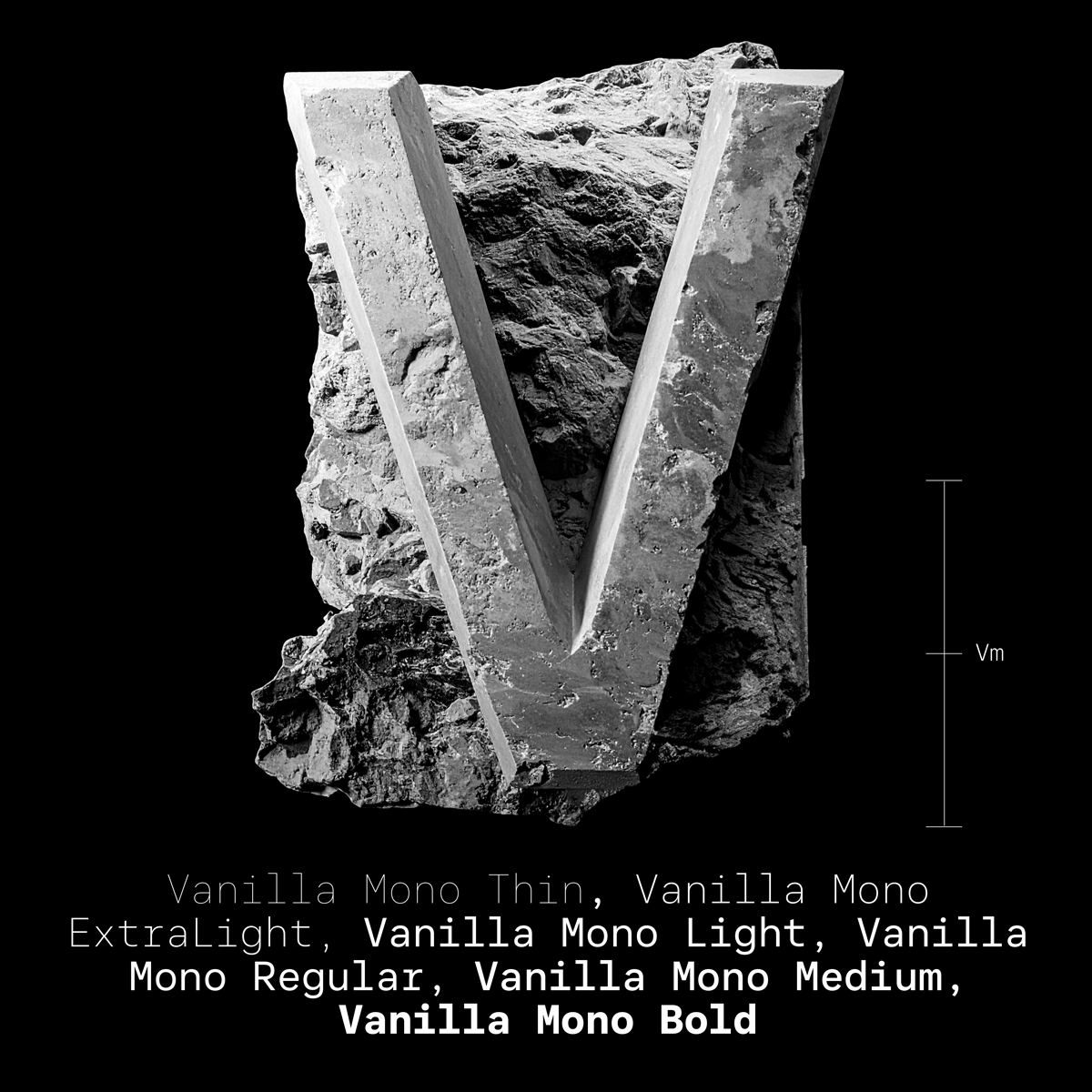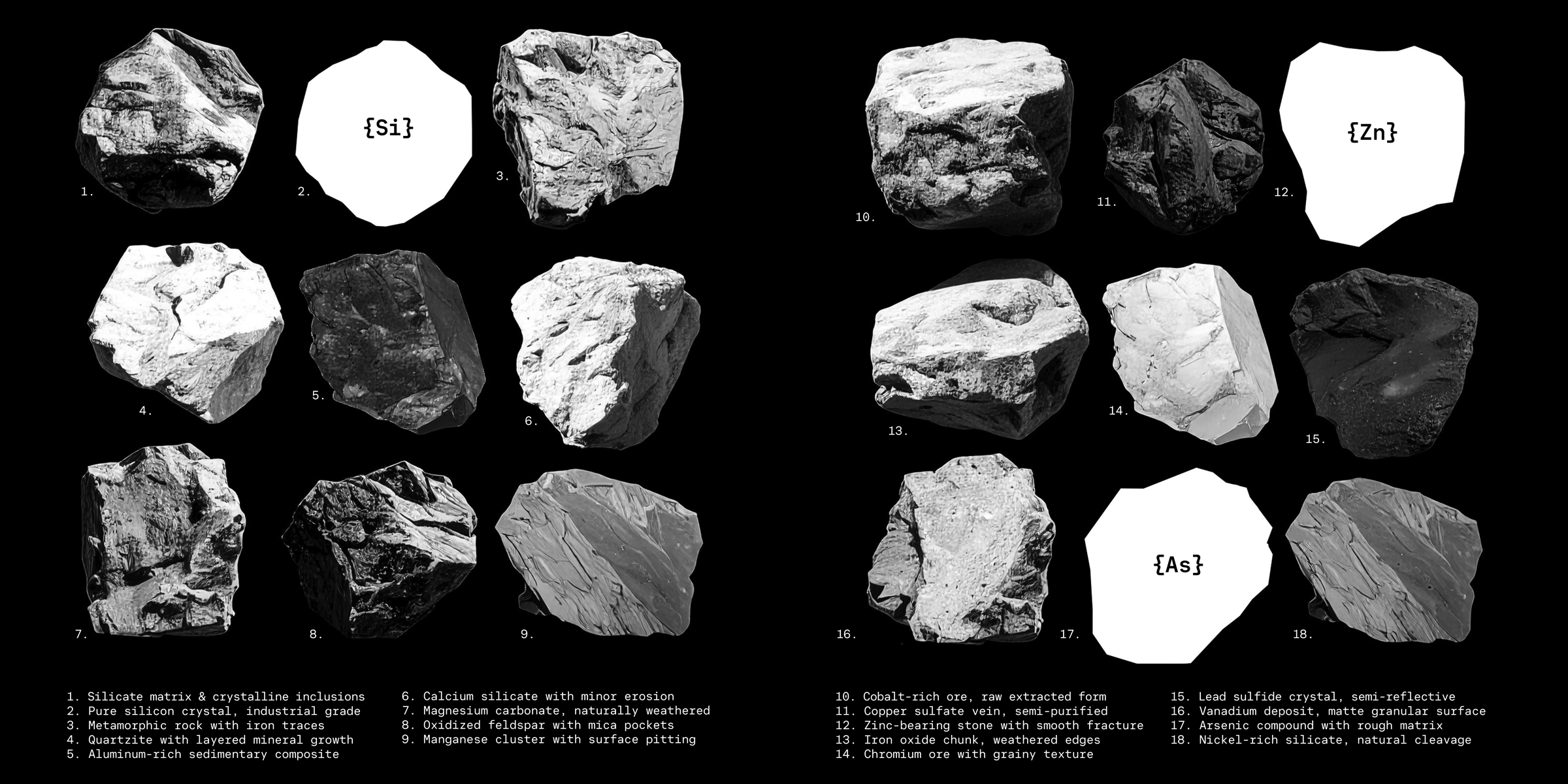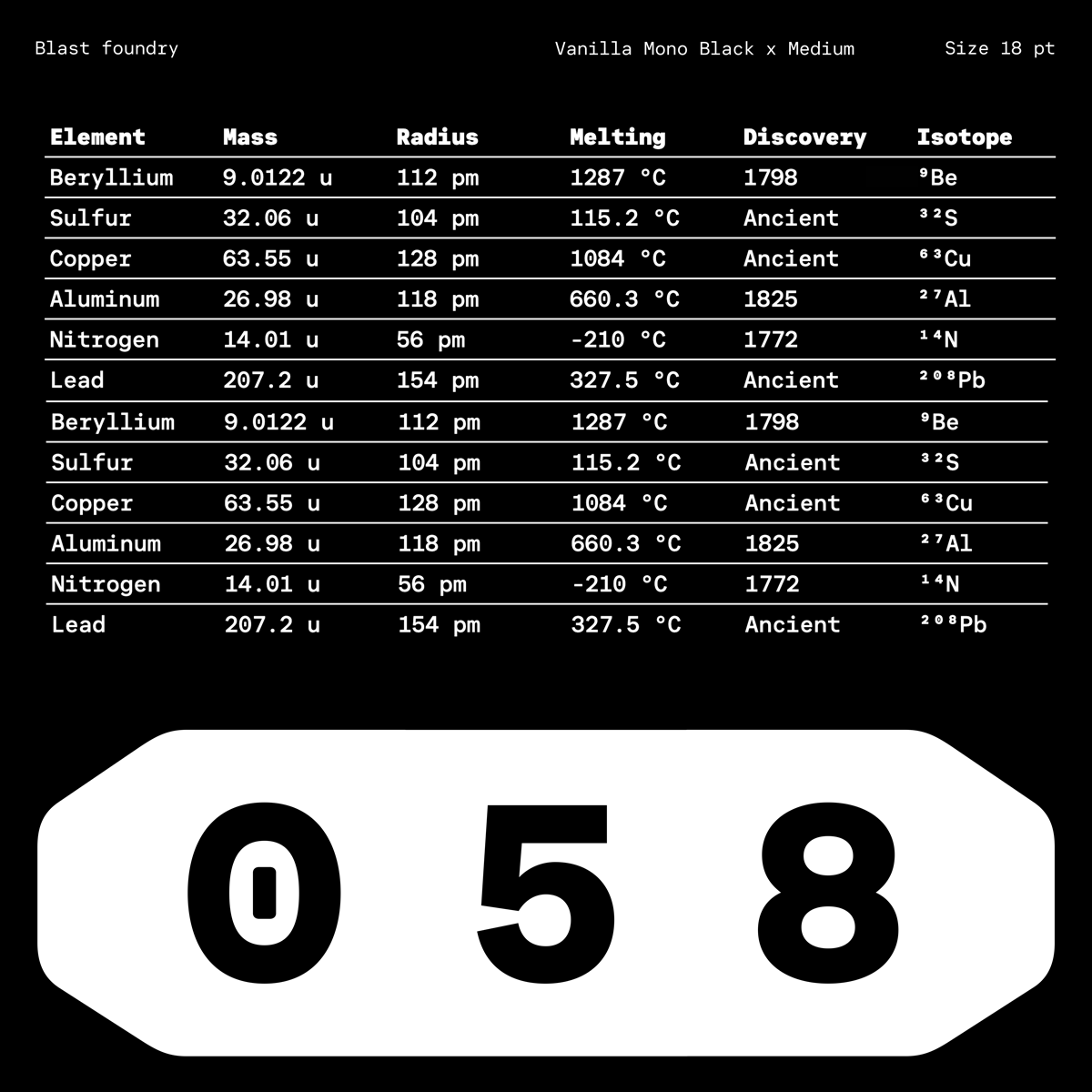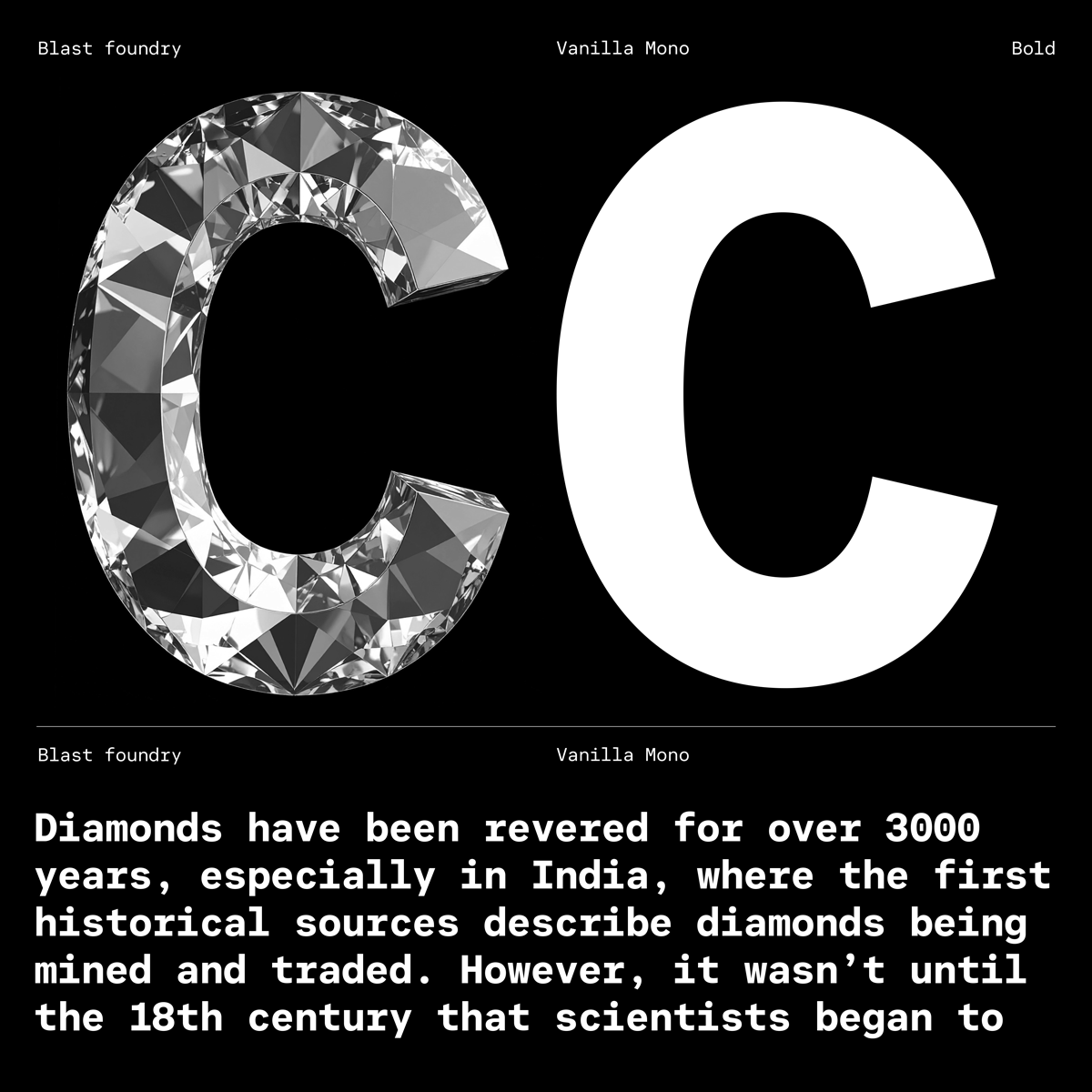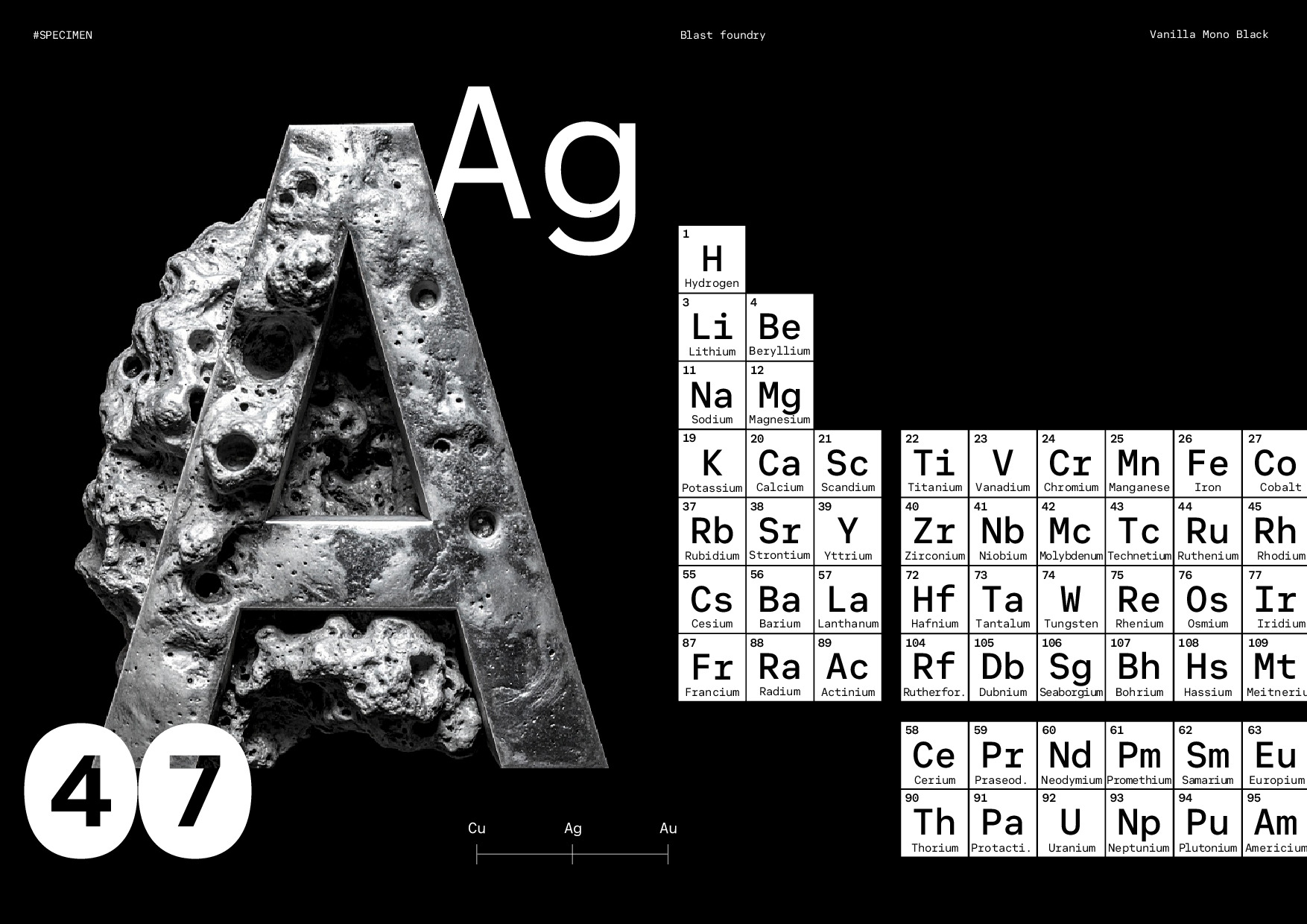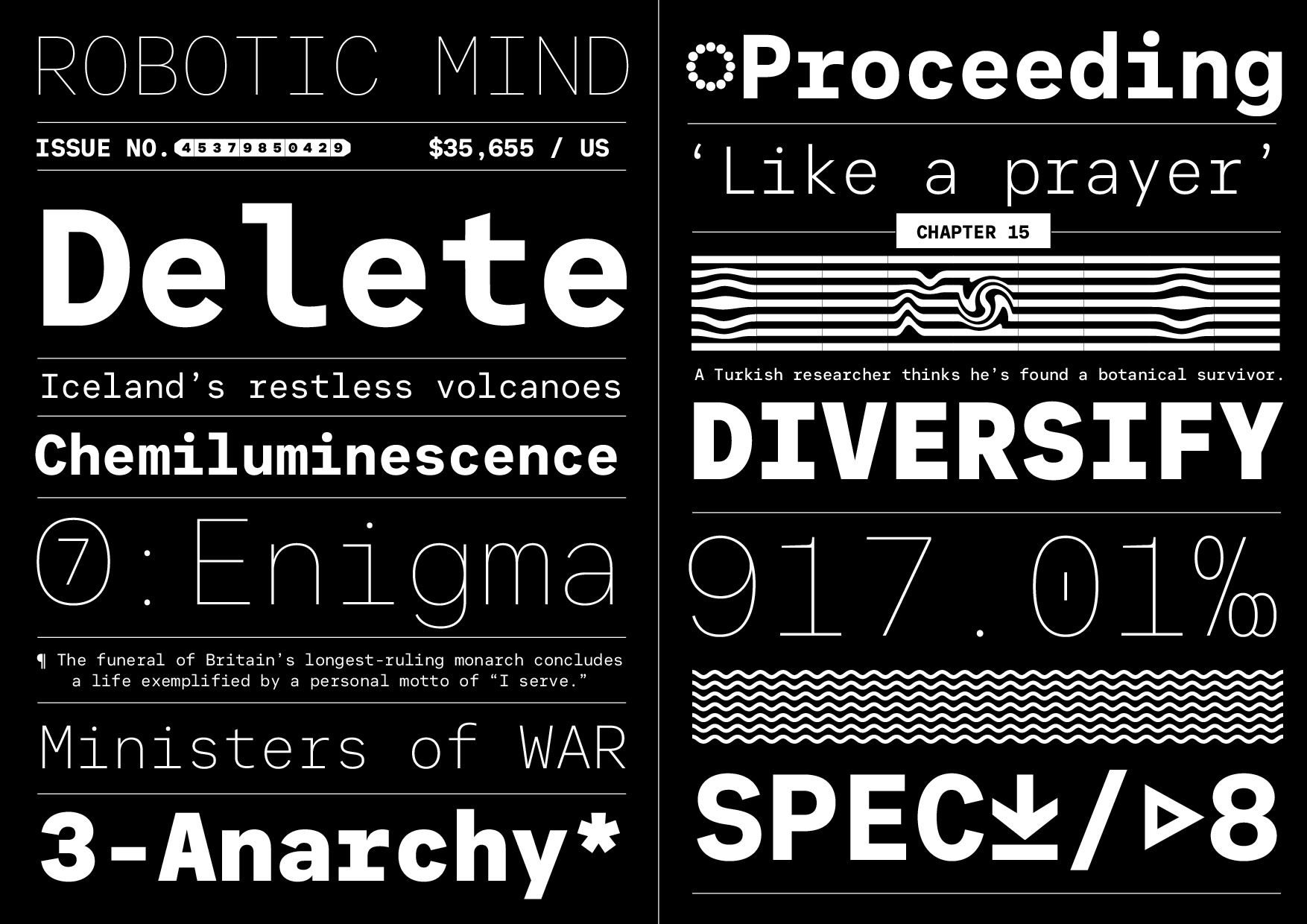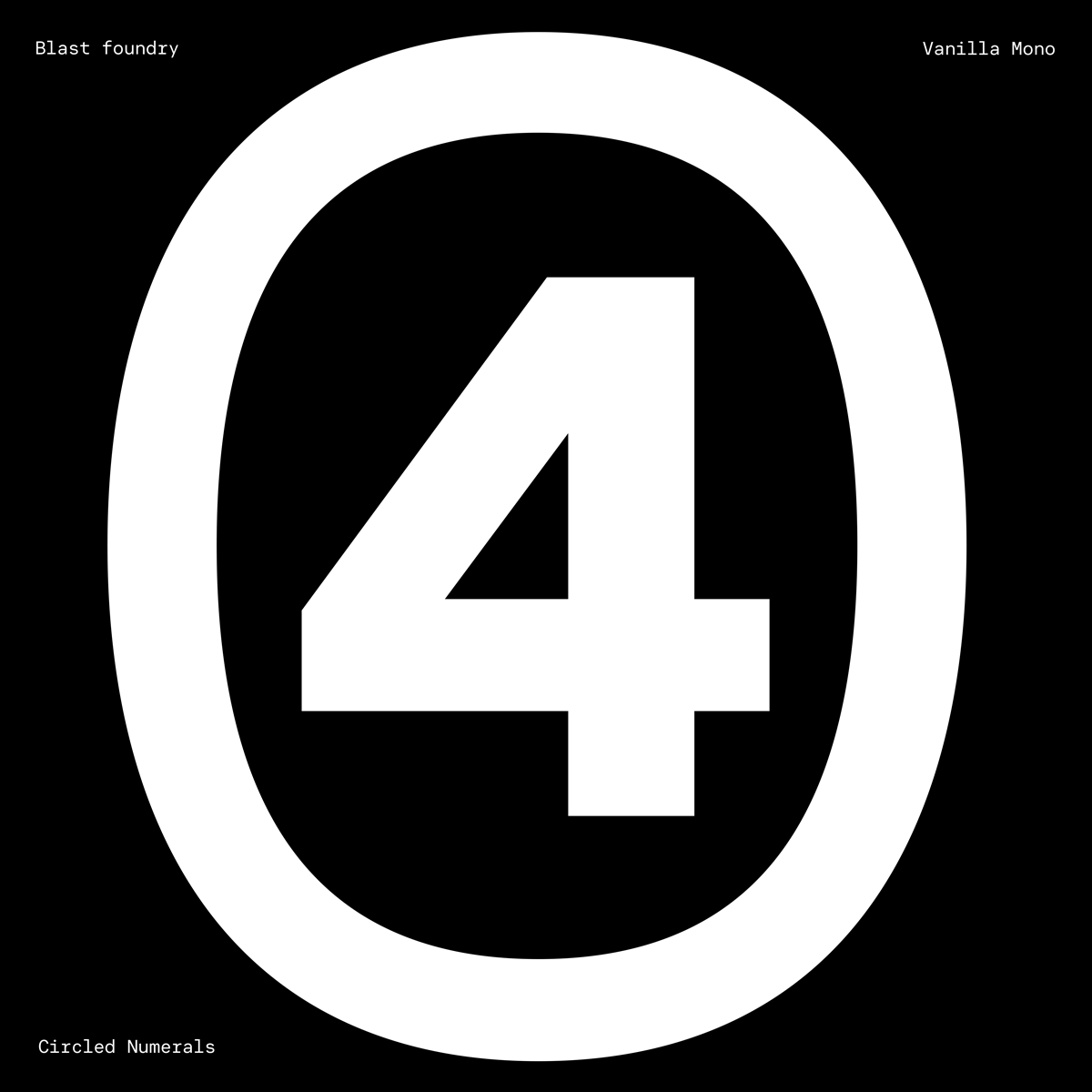
Vanilla Mono
Monospaced Sans in 8 weights with alternates
Vanilla Mono VF • wght: [100–900]
Vanilla Mono is the monospaced companion to Vanilla Sans, crafted for designers and developers who want clarity without compromise. With 8 upright weights, it’s built for coding environments, terminal interfaces, and data-heavy layouts where alignment and consistency matter. Its clean geometry and open rhythm make it a go-to for legible code and structured design systems alike.
Beyond the basics, Vanilla Mono brings a few surprises. It includes smart alternates (a, g, l, G, J), a wide set of arrows and circled numerals for UX way-finding, and a full A–Z range of pattern glyphs through Stylistic Set 7. These aren’t just decorative details — they’re practical tools that help you build hierarchy, add personality, and keep your interfaces sharp. Whether you’re writing code, designing UI, or laying out technical docs, Vanilla Mono keeps things grounded and refined.